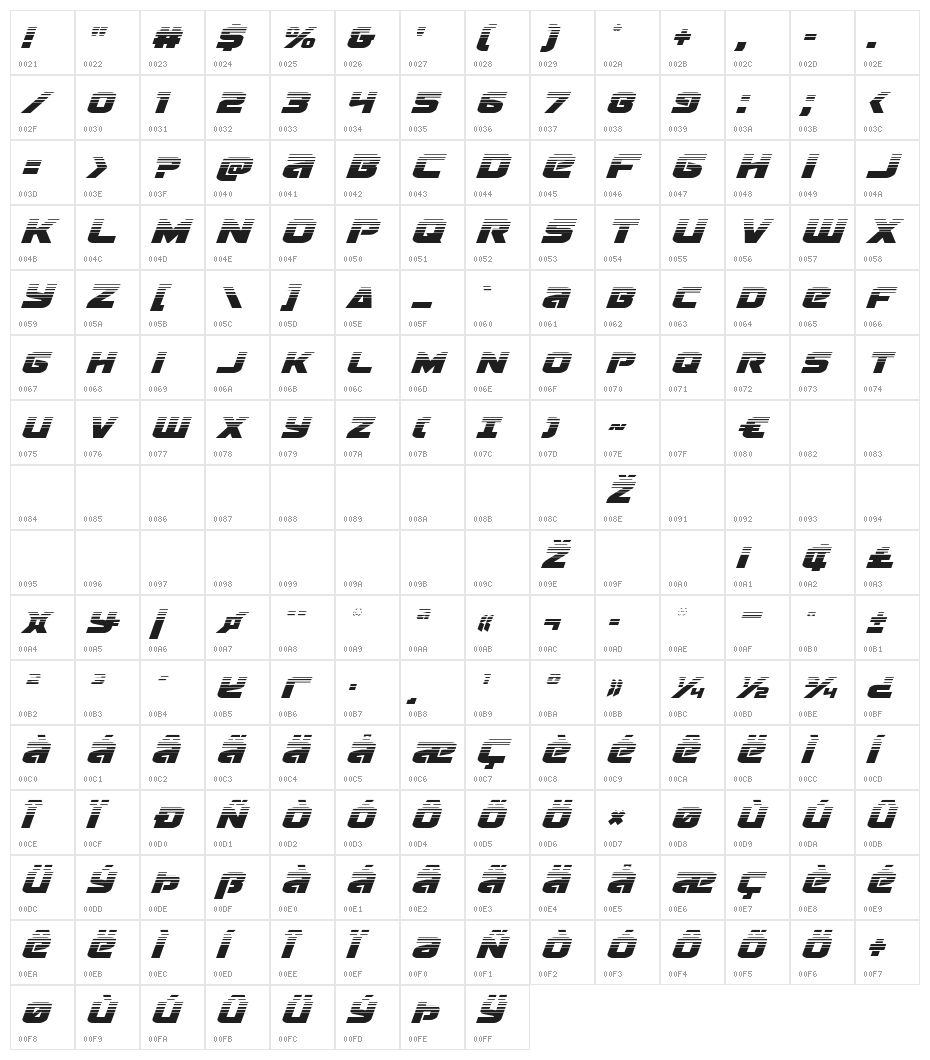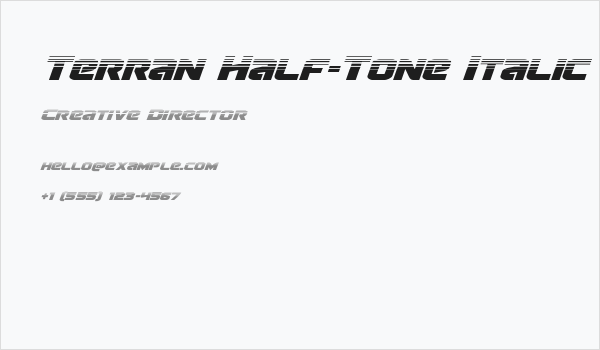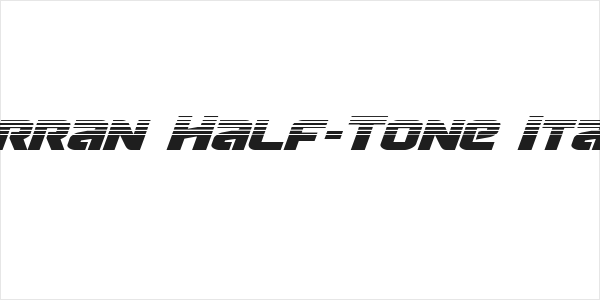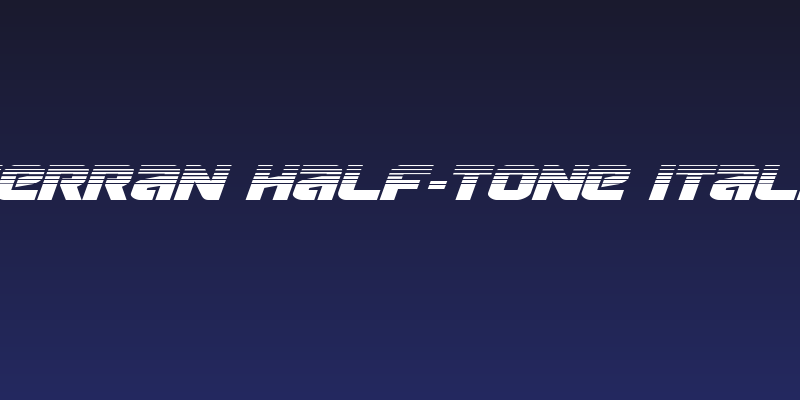
Terran Half-Tone Italic Font
Terran Half-Tone Italic Description
This font features a bold, italicized style with a futuristic and dynamic appearance. The characters are designed with a unique half-tone effect, creating a sense of movement and speed. The uppercase and lowercase letters maintain a consistent slant, enhancing the italicized look. The numbers and special characters follow the same design principles, ensuring uniformity across the set. The font's bold strokes and geometric shapes make it stand out, while the half-tone lines add a layer of complexity and visual interest.
Proposed ProjectsIdeal for sci-fi themed projects, video game titles, technology branding, and dynamic poster designs.